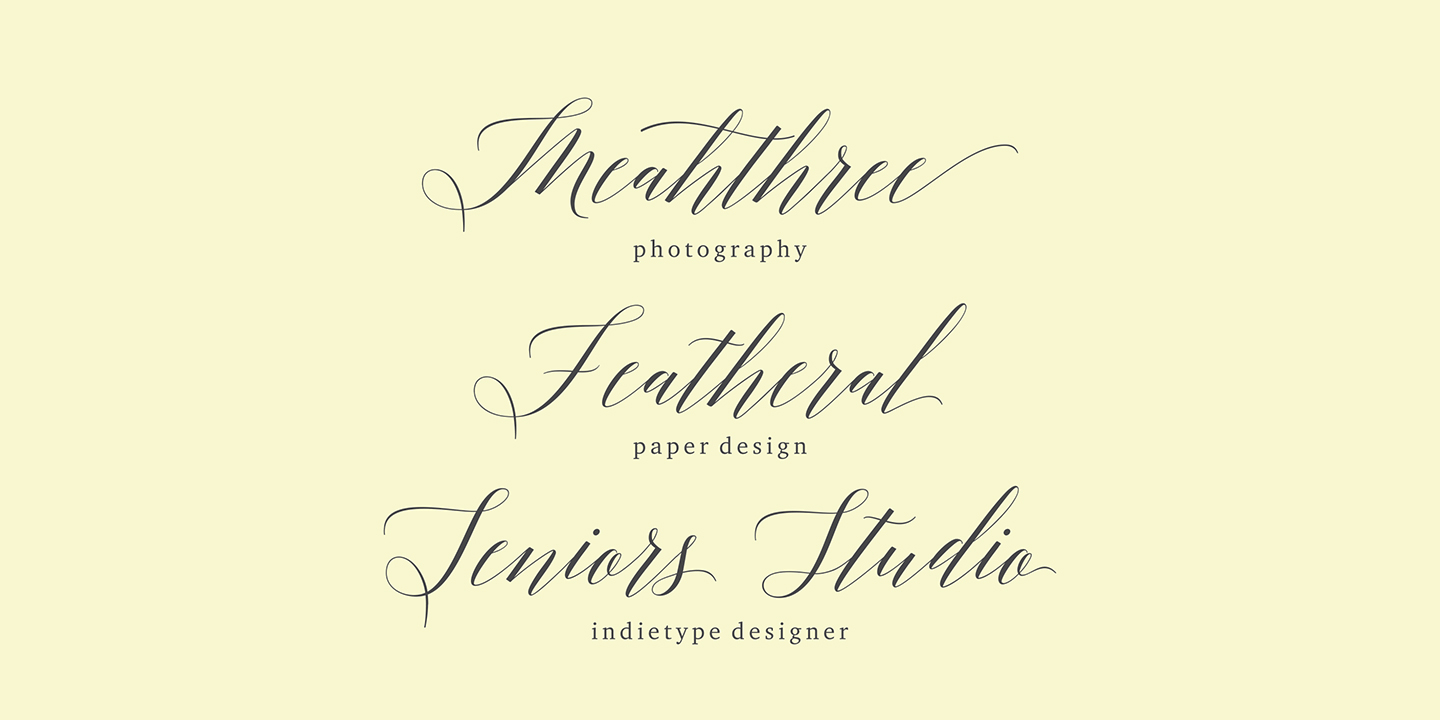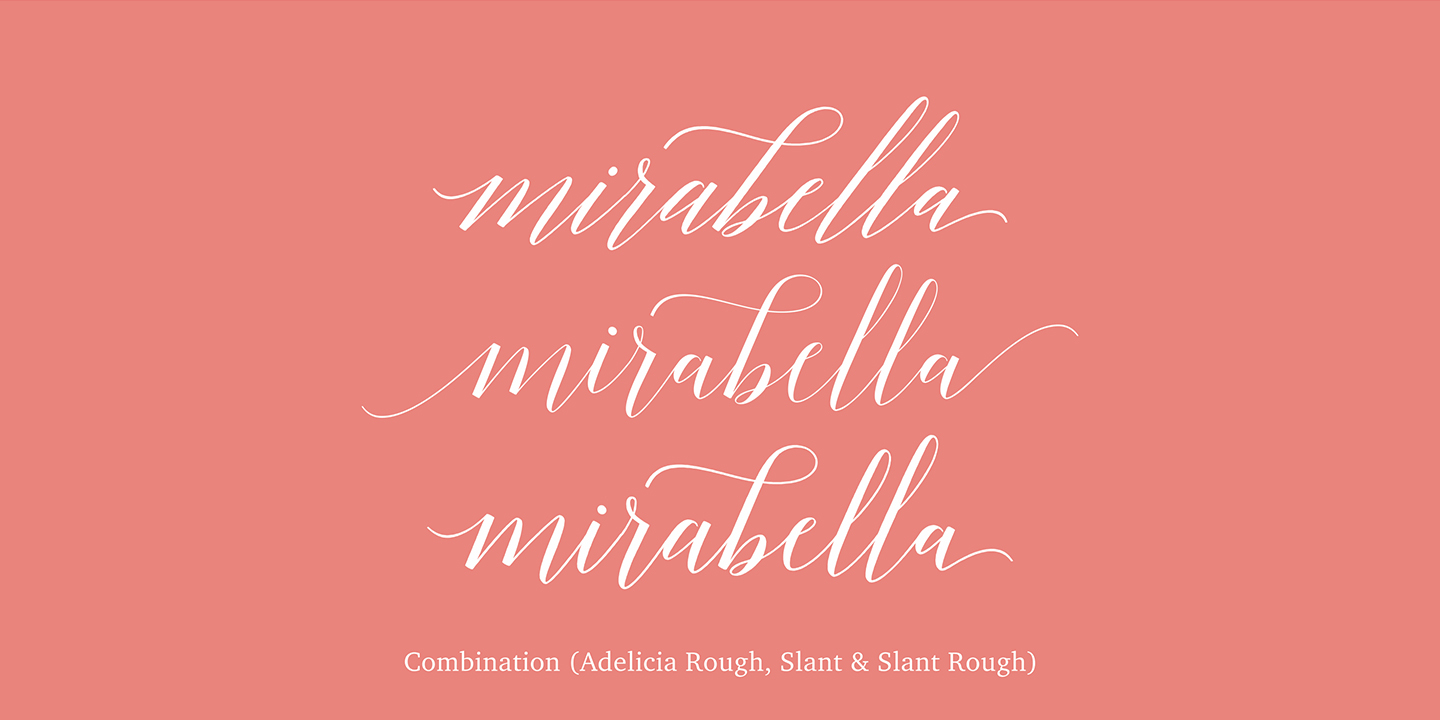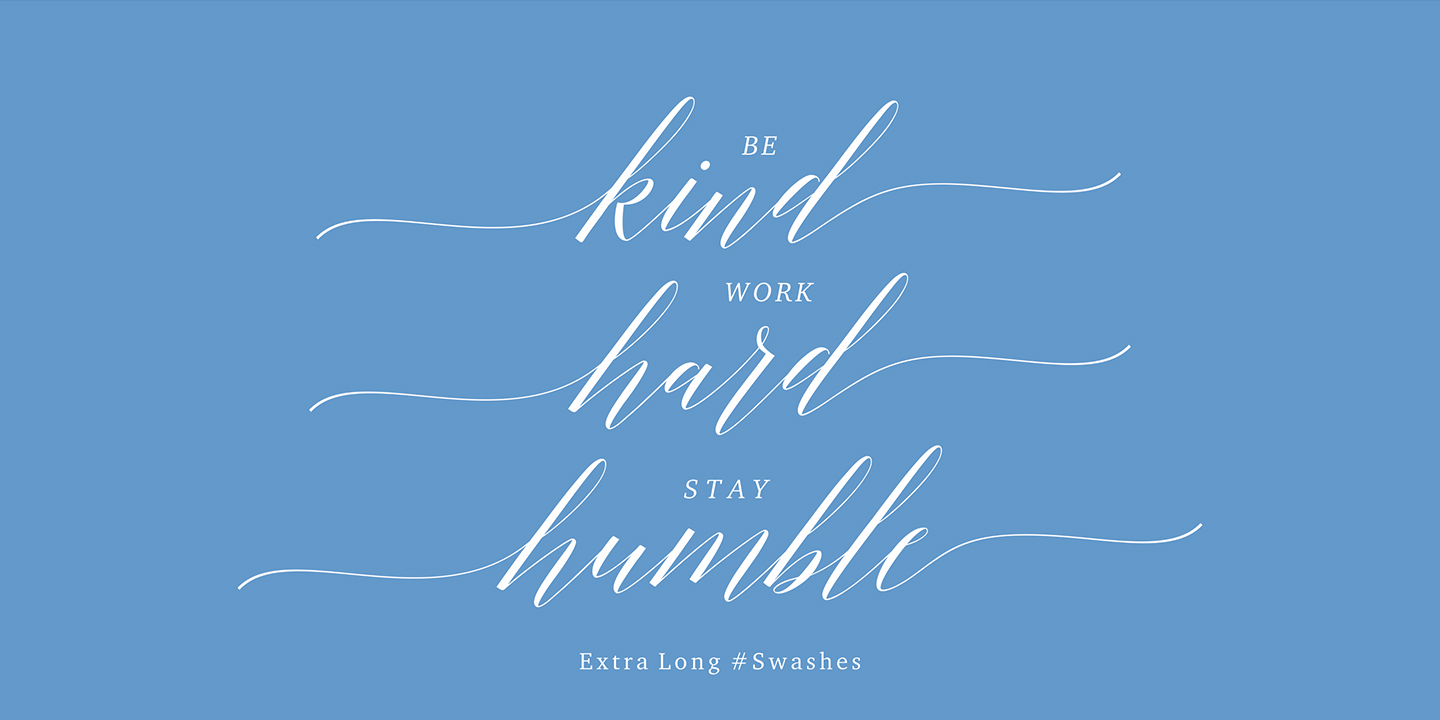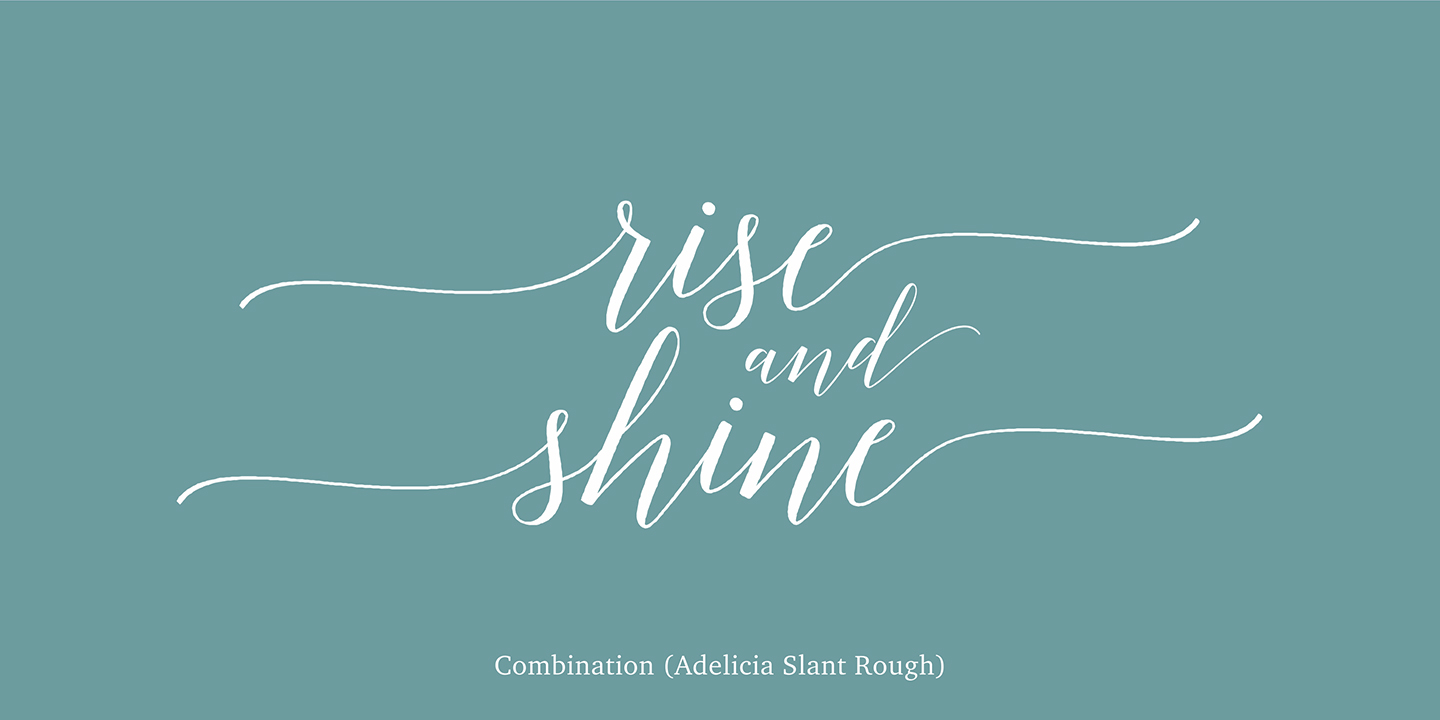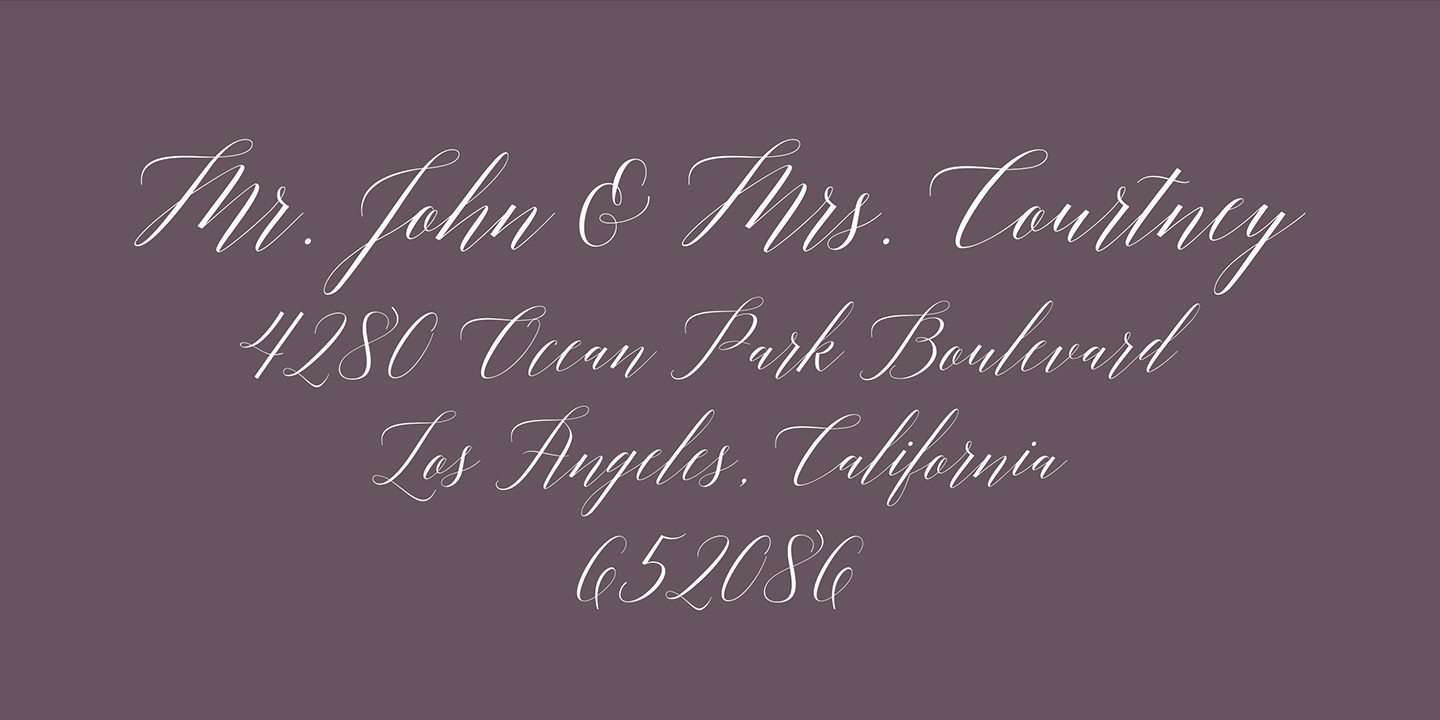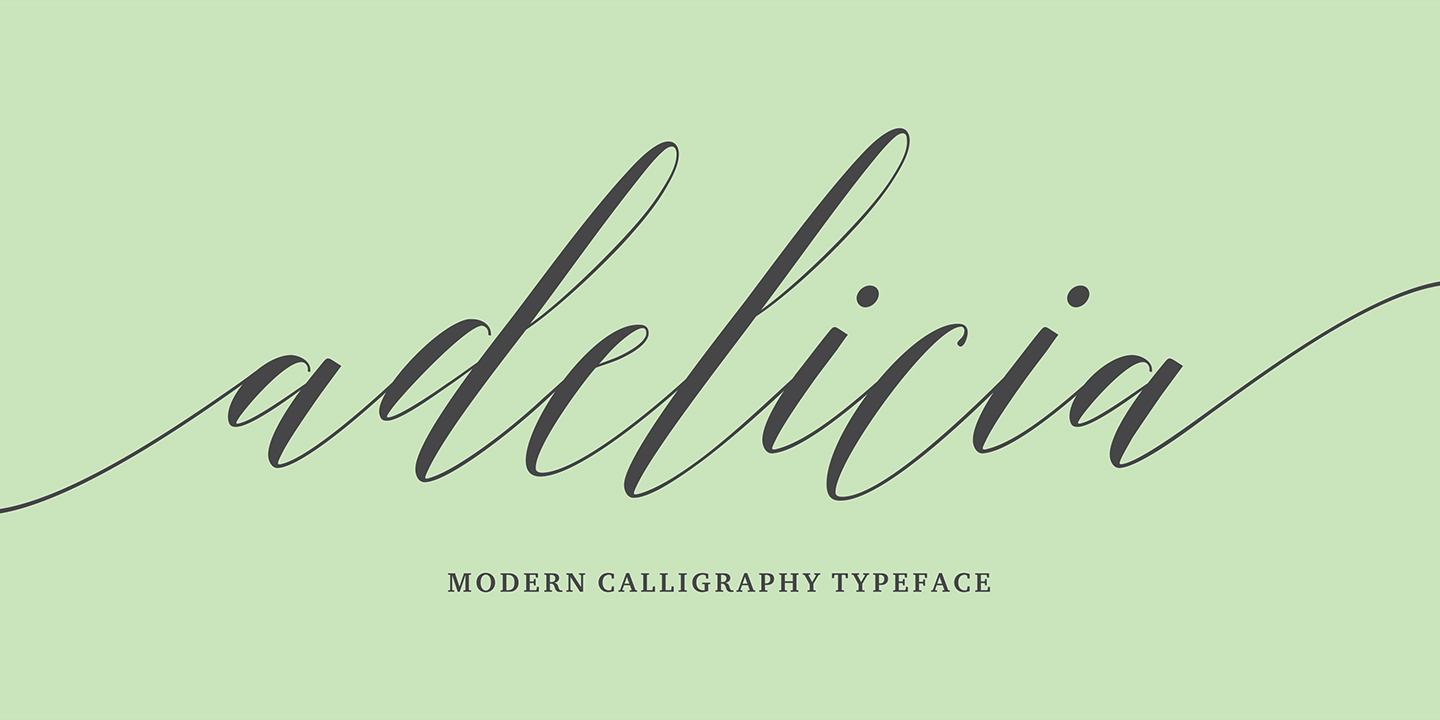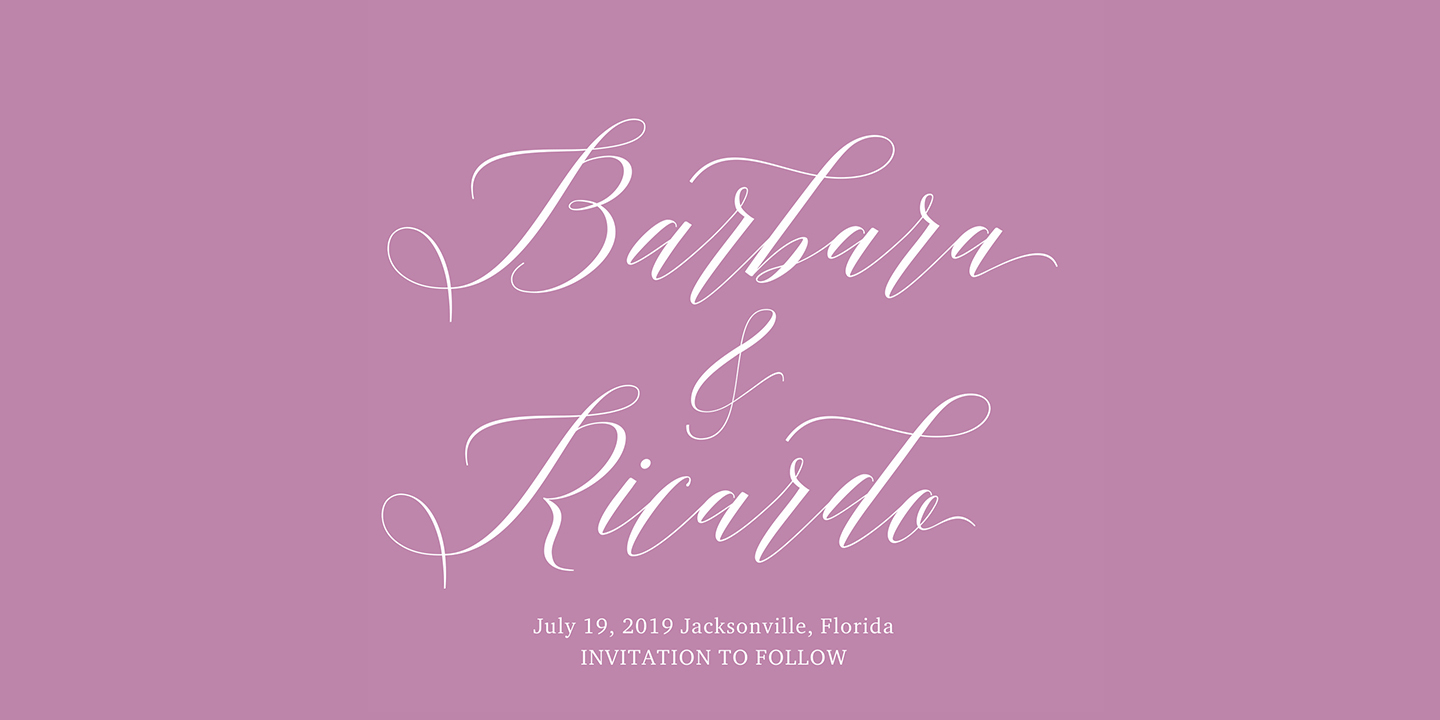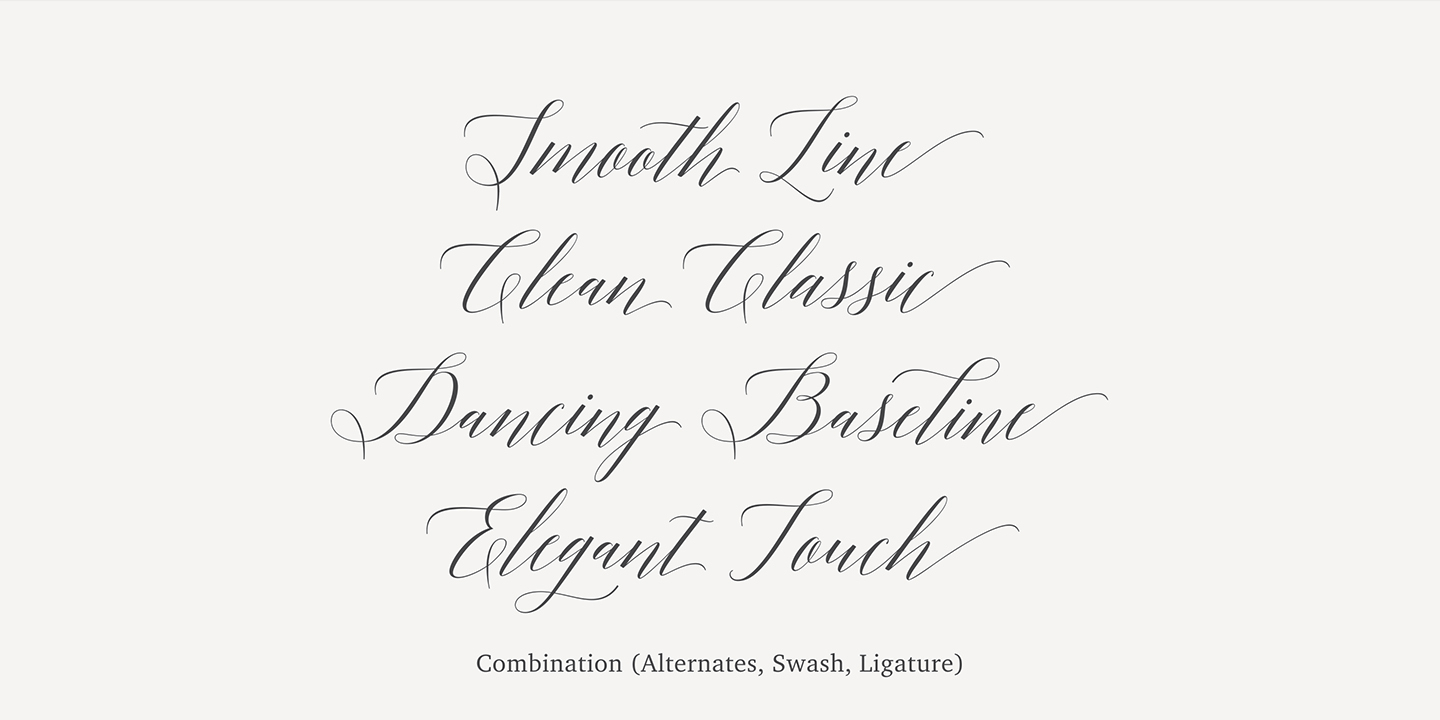
About Adelicia Script
Adelicia Script is a stylish calligraphy font that features a varying baseline, smooth line, classic and elegant touch. It can be used for various purposes, such as headings, signature, logos, wedding invitation, t-shirt, letterhead, signage, labels,…